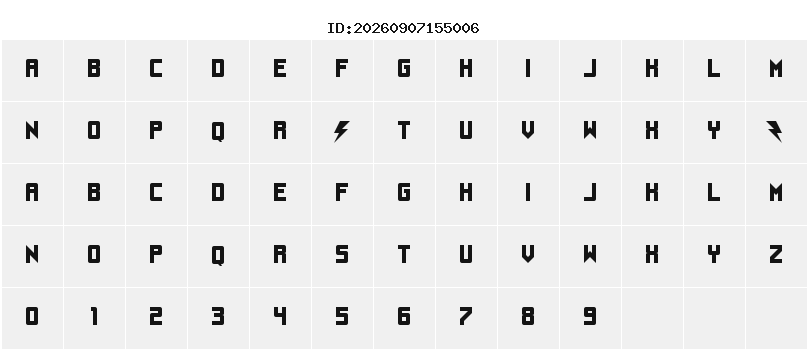
UnderStrukk Preview
• Font Name: UnderStrukk
• Full Font Name: UnderStrukk Regular
• Designer: Andrew McCluskey
• Description: “UnderStrukk” was built with FontStruct
About UnderStrukk.ttf
UnderStrukk.ttf is a modern, elegant sans-serif font designed for ultimate readability and visual harmony. Perfect for branding, headlines, web design, and print materials.